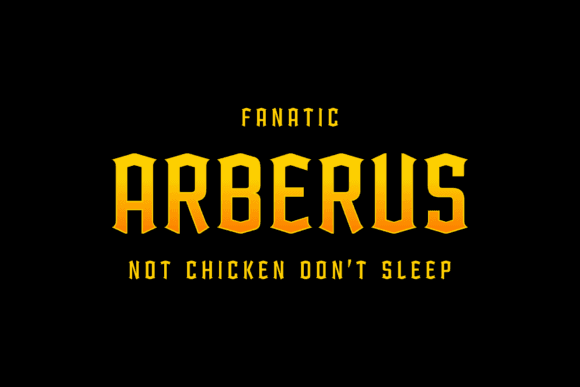
Arberus Font for Crafting, Logos and Print Projects
This font file includes a clean, structured typeface designed for creative projects that require modern edge and readability. Arberus excels in crafting workflows, logo design, and physical product labeling, thanks to its sharp lines and visual balance. As a font entity, it delivers production-ready results whether used digitally or in print. In addition to its versatile applications, Arberus also serves as an art club font for crafting, making it a favorite among creative enthusiasts. Its versatility allows designers to explore innovative layouts and presentations while maintaining clarity and style. Whether you're designing event posters or custom stationery, Arberus brings a unique flair that enhances any artistic endeavor.
Perfect for crafters, designers, and businesses alike, this font holds up in cutting machine apps, printing software, and layout editors—making it an essential tool for scalable branding and product design.
- Logos and brand visuals
- Printable posters, flyers, and labels
- Vinyl decals and product wraps
- Custom apparel and tote bags
- Event signage and promotional materials
- Modern, versatile letter design
- Optimized for cut, print, and digital use
- Works great across brand and craft applications
| Feature | Arberus Font | Generic Font A | Generic Font B |
| Design Aesthetic | Geometric, clean, structured | Rounded sans-serif | Traditional serif |
| Use Compatibility | Crafting, branding, signage | Web text | Editorial layouts |
| Visual Strength | Medium to high | Moderate | Subtle |